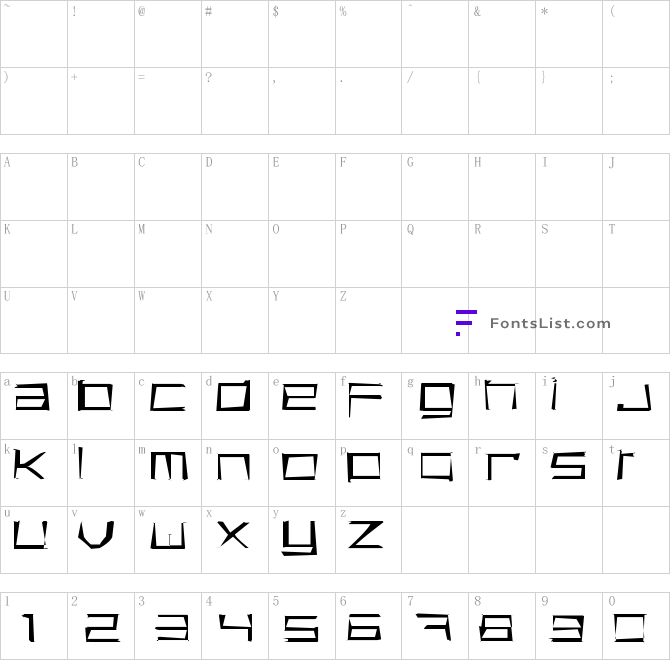
- Font Name:Basica Cartoon
Basica-Cartoon.ttf is a very beautiful artistic font, Basica-Cartoon.ttf is widely used in the design and printing of various books and pictures,Basica-Cartoon.ttf has a strong visual impact,Basica-Cartoon.ttf is a commonly used font in newspapers, magazines and books, and is used in posters, e-commerce Poster design, store design, logo design, font design and other fields.Basica-Cartoon.